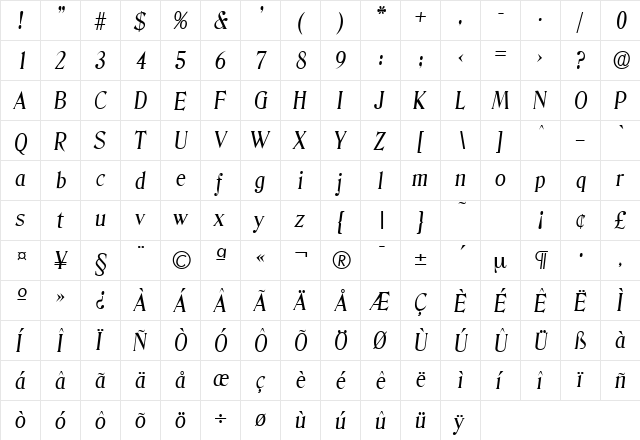
Denver-Serial RegularItalic
Design Context for Denver-Serial Typeface
Denver-Serial takes a measured approach to typography — its balanced proportions and neutral character make it a reliable workhorse for both digital and print work. Its italic angle brings a sense of urgency and motion to the letterforms.
Pro Tip: Use Denver-Serial for emphasis, pull quotes, and subheadings where its slanted energy can add rhythm to the layout.